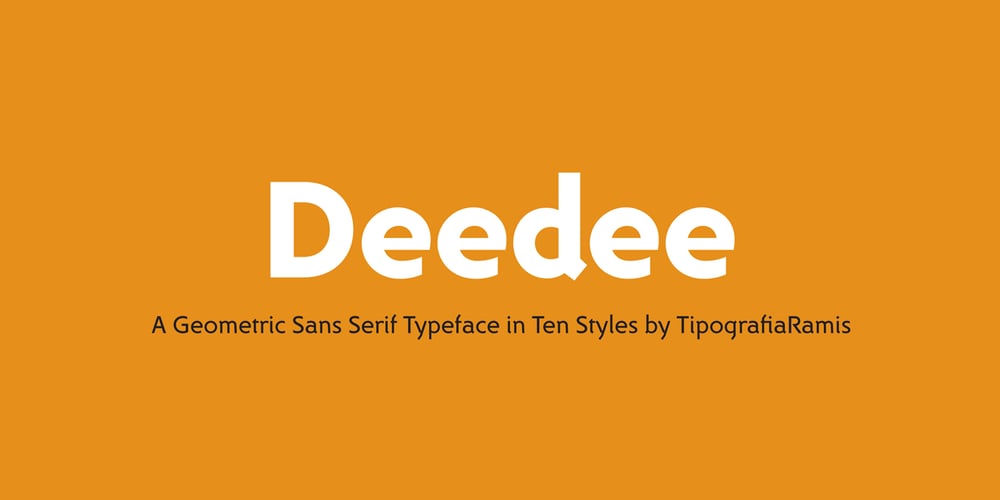
Dee Dee Font Family was designed by Ramiz Guseynov and published by TipografiaRamis. Dee Dee contains 10 styles and family package options. This is a second edition of Deedee type family, originally designed in 2011. Deedee is a geometric sans serif typeface family of ten styles with extended support for most Latin languages plus Cyrillic. Revisions in this edition included minor adjustments to glyph shapes and improved kerning tables. The typeface is ideal for use in display sizes and is quite legible in the text.